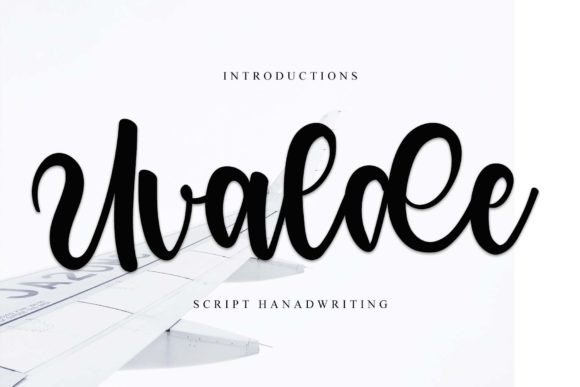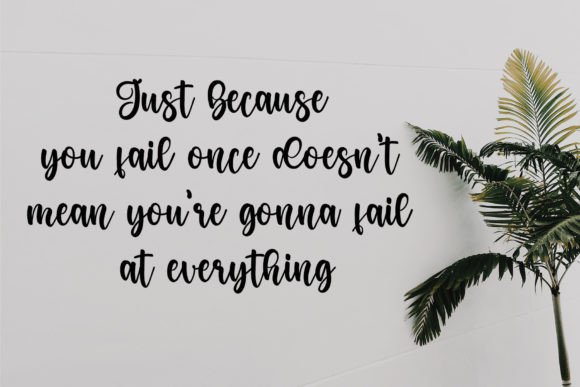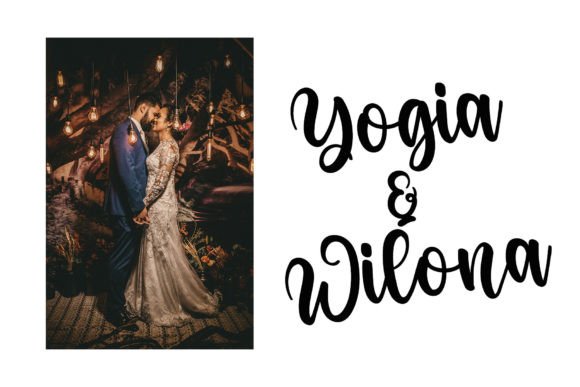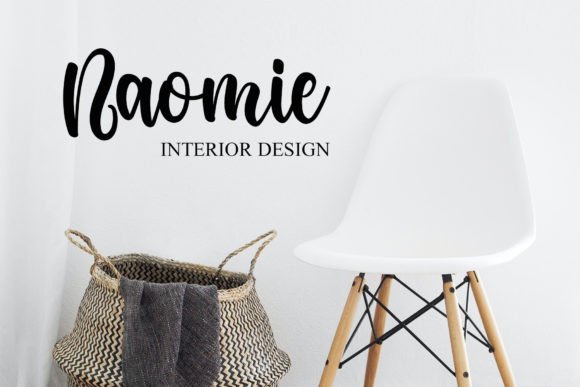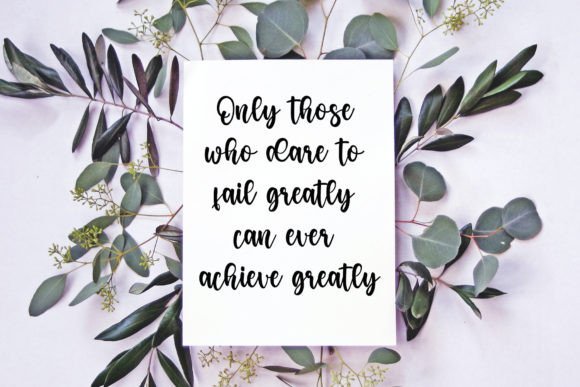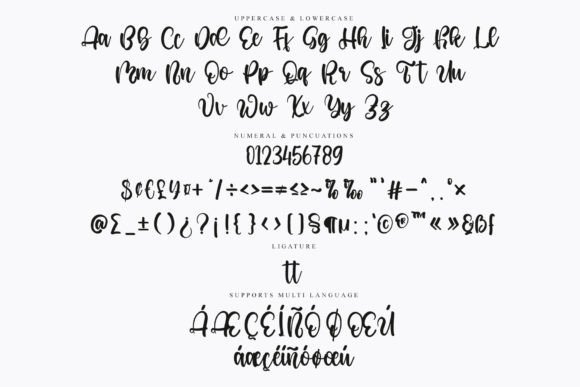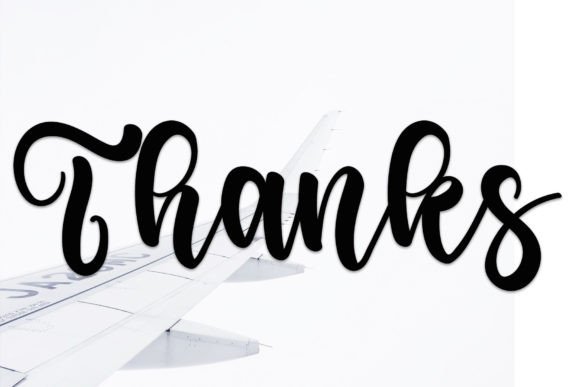
Uvalde Font
About Uvalde Font
**Uvalde Font: A Bold and Exquisite Handwritten Typeface**
Introducing Uvalde, a bold and exquisite handwritten font that adds a touch of style, grace, and flow to your design projects. With its stylish yet grounded aesthetic, Uvalde is the perfect choice to elevate the look of your creations. Here’s why Uvalde stands out:
**Bold and Exquisite Design:**
Uvalde features a bold and exquisite design that grabs attention and leaves a lasting impression. Its stylish appearance sets it apart, making it ideal for various design applications.
**Stylish and Graceful Aesthetic:**
The font exudes a sense of style and grace with every character. Its flowing and elegant strokes give your text a sophisticated and refined appearance.
**Natural and Grounded Feel:**
While Uvalde is stylish and bold, it maintains a natural and grounded feel, making it versatile for a wide range of design projects. It effortlessly balances flair with readability.
**Elevate Your Creations:**
Whether you’re working on branding, logos, invitations, posters, or any other design, Uvalde has the power to elevate your creations, giving them a touch of luxury and sophistication.
**Engaging and Captivating:**
Uvalde’s captivating design engages your audience and draws them into your content. It’s a font that makes your text visually interesting and memorable.
**Versatile Applications:**
From product packaging to social media posts, Uvalde can be used across various design applications. Its versatility makes it a valuable addition to your font library.
**Timeless Appeal:**
Uvalde’s timeless appeal ensures that your designs remain relevant and visually appealing for years to come. It’s a font that stands the test of time.
**Bold Statements:**
When you want your designs to make a bold statement, Uvalde is the font to turn to. It conveys confidence and style, making it ideal for impactful design projects.
**Ideal for Branding:**
For businesses and brands looking to make a lasting impression, Uvalde is an excellent choice. It adds a touch of luxury and elegance to branding materials.
**Create Beautiful Creations:**
Uvalde is more than just a font; it’s a tool for creating beautiful and impactful design pieces. It enhances the visual appeal of your projects effortlessly.
**Elevate Your Designs with Uvalde:**
If you’re ready to take your designs to the next level and make a bold statement, Uvalde is the font that can help you achieve that. It’s bold, exquisite, and ready to transform your creative work.
**Experience Stylish Sophistication:**
Unlock the stylish sophistication that Uvalde brings to your projects. It’s the font that allows you to make a strong visual impact while maintaining a touch of elegance.
**Make a Bold Statement with Uvalde:**
Uvalde is your partner in making bold and captivating design statements. Elevate your creative work and leave a lasting impression with this exquisite handwritten font.